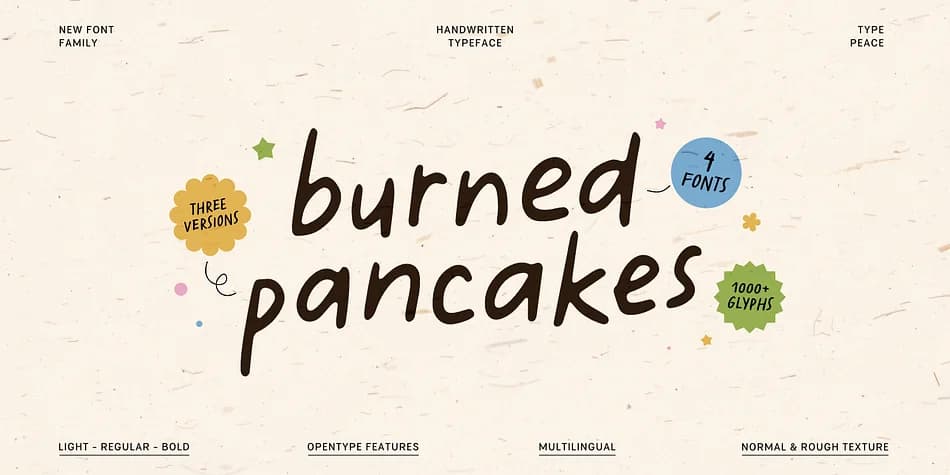
Imagine a coffee shop menu board where every letter looks like it was lettered by hand, but without the time investment. Burned Pancakes, designed by type peace, is a handwritten typeface that captures the energy of casual brushwork while staying perfectly legible at any size. Its laid-back character and bouncy rhythm feel personal without being precious.
You'll find it working beautifully on wedding invitation suites where that DIY charm matters, on Etsy product labels for candles and artisan goods, and on cafe menu boards and restaurant branding where authenticity counts. The typeface ships in four weights (Light, Regular, Bold, and Rough), each bringing a different mood. What makes it genuinely useful is the built-in variation system: three alternate forms of every letter rotate automatically when you use the OpenType features, so adjacent repeated letters never look duplicated. That same system includes ligatures and stylistic alternates, giving you control over exactly how organic things feel. With over 1000 glyphs and support for Western European, Central European, Southeast European, and Vietnamese languages, it covers most projects you'll throw at it.
Burned Pancakes Font is a decorative font that shines as a display or heading face. Pair it with a clean sans-serif or serif font for body text β the contrast creates a clear hierarchy while the two styles stay balanced and easy to read.